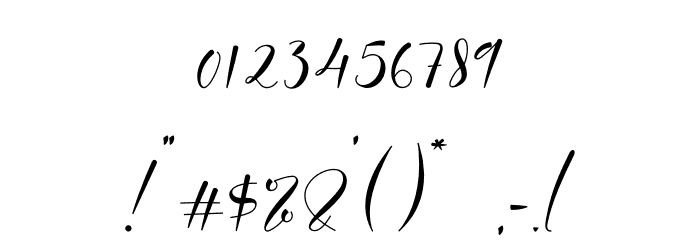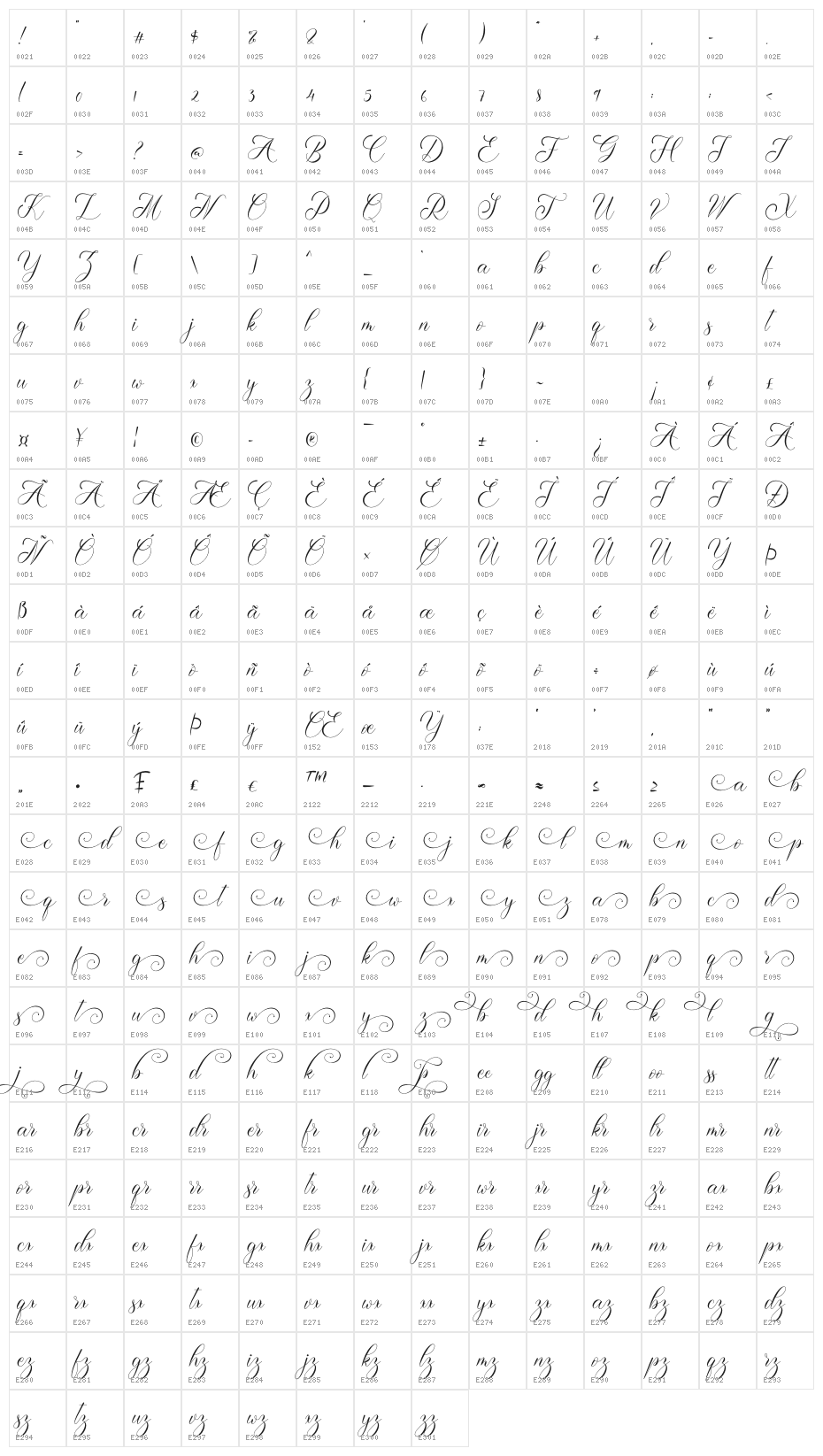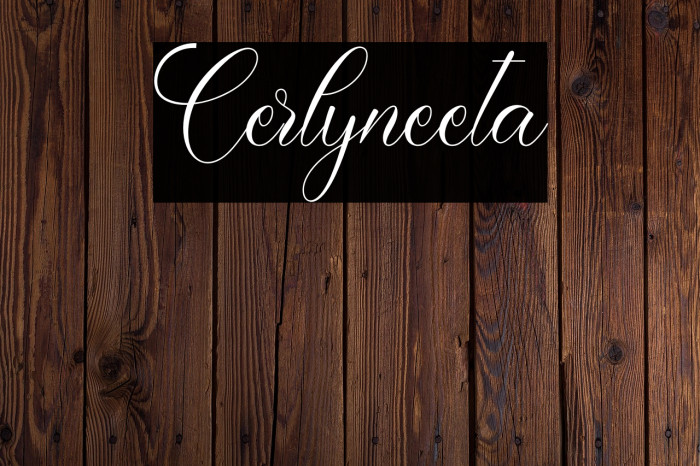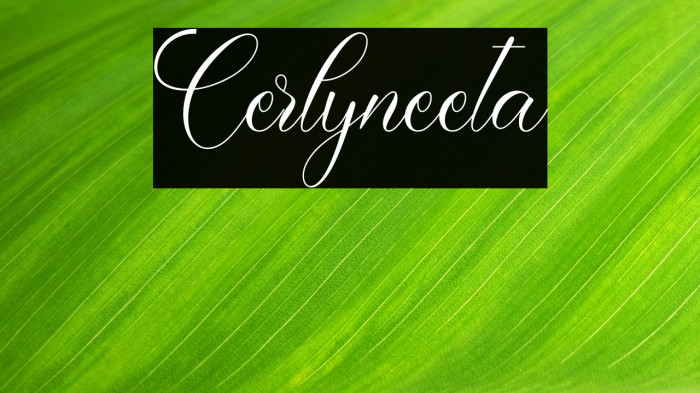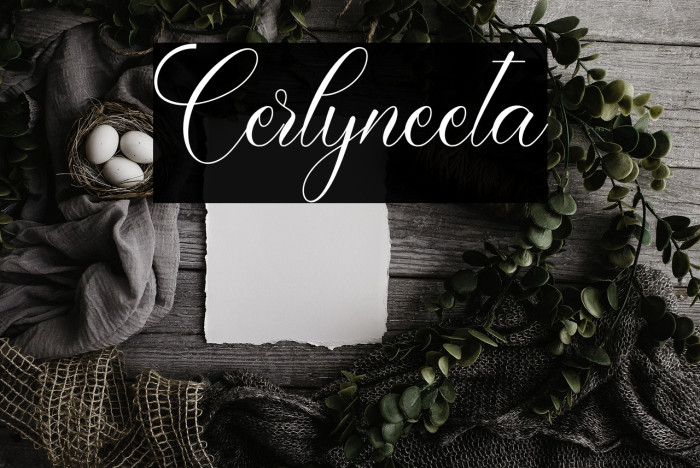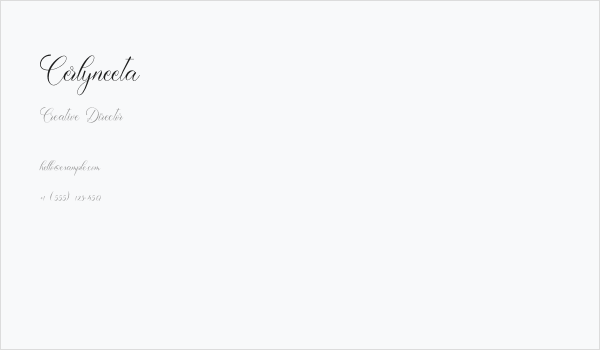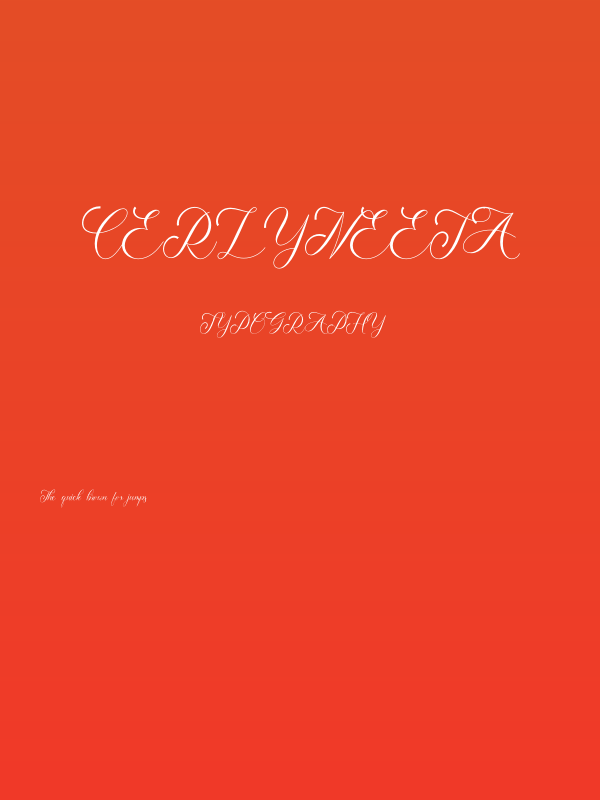
Cerlyneeta Font
Cerlyneeta Description
This elegant script font features flowing, interconnected letters with a refined and sophisticated appearance. The uppercase letters are characterized by their intricate loops and swashes, giving them a decorative flair. The lowercase letters maintain a consistent style, with smooth curves and a graceful flow that enhances readability. The numerals are designed to complement the overall aesthetic, maintaining the same fluidity and elegance. Special characters are thoughtfully integrated, ensuring they blend seamlessly with the rest of the font. This font exudes a sense of luxury and is perfect for projects that require a touch of class and sophistication.